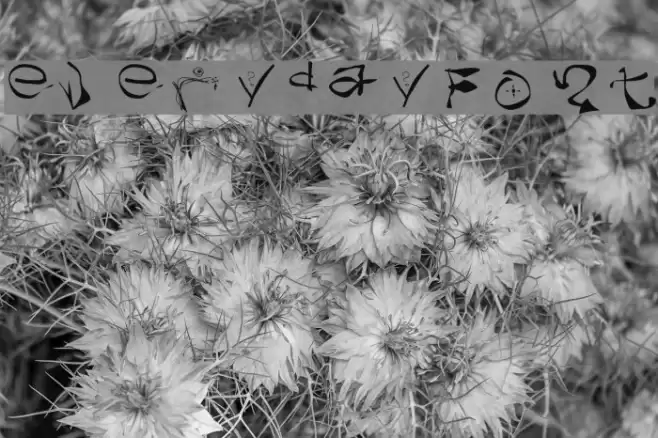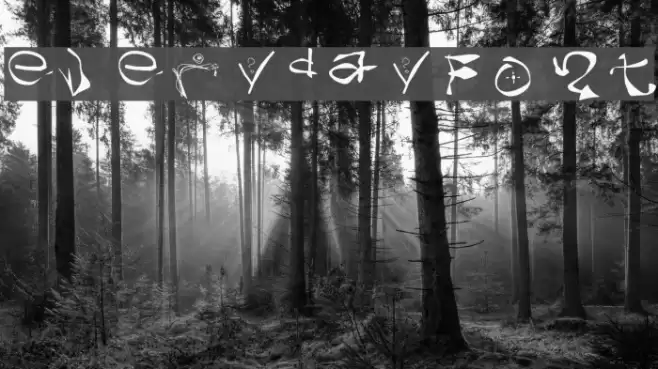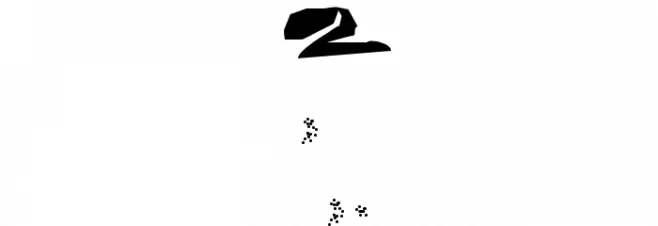
everydayFont Font
everydayFont Description
This font features an eclectic and artistic design, with each character showcasing unique and whimsical elements. The letters are highly decorative, incorporating abstract shapes and intricate details that give them a playful and imaginative appearance. The uppercase and lowercase letters maintain a consistent style, with some characters resembling abstract art more than traditional typography. The numbers and special characters continue this theme, adding to the font's overall creative and unconventional look. This font is ideal for projects that require a distinctive and artistic touch.
A highly decorative and artistic font with whimsical, abstract elements from Uncategorized fonts.
- Proposed Projects: Ideal for creative projects such as art posters, album covers, unique branding, and invitations that require a distinctive and artistic flair.
- Use Case: Logos, Posters, Artistic projects